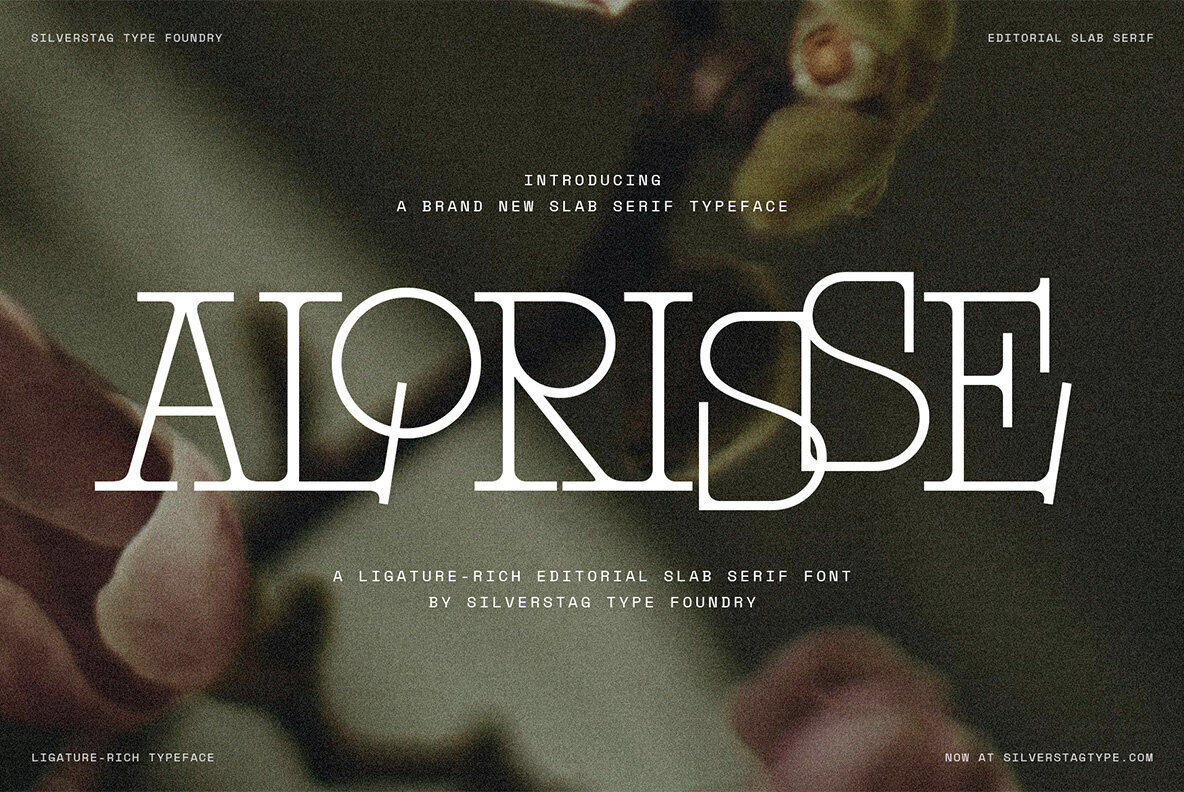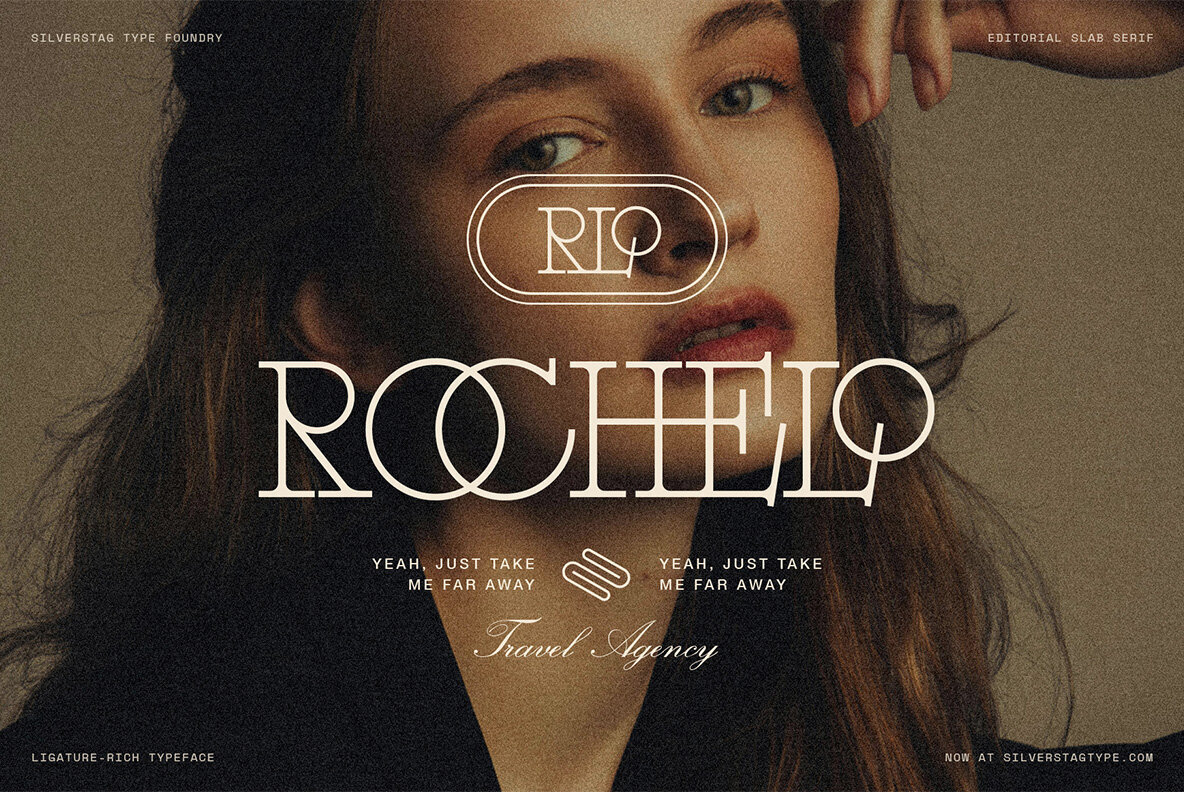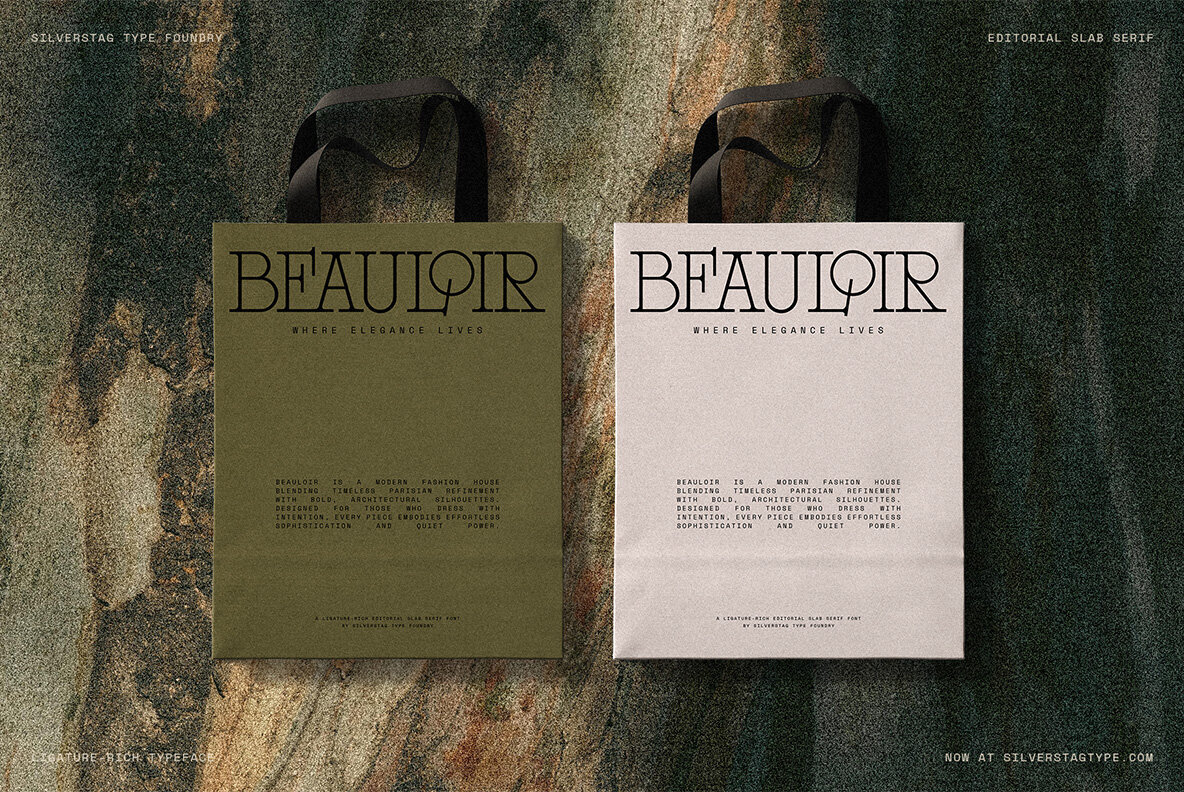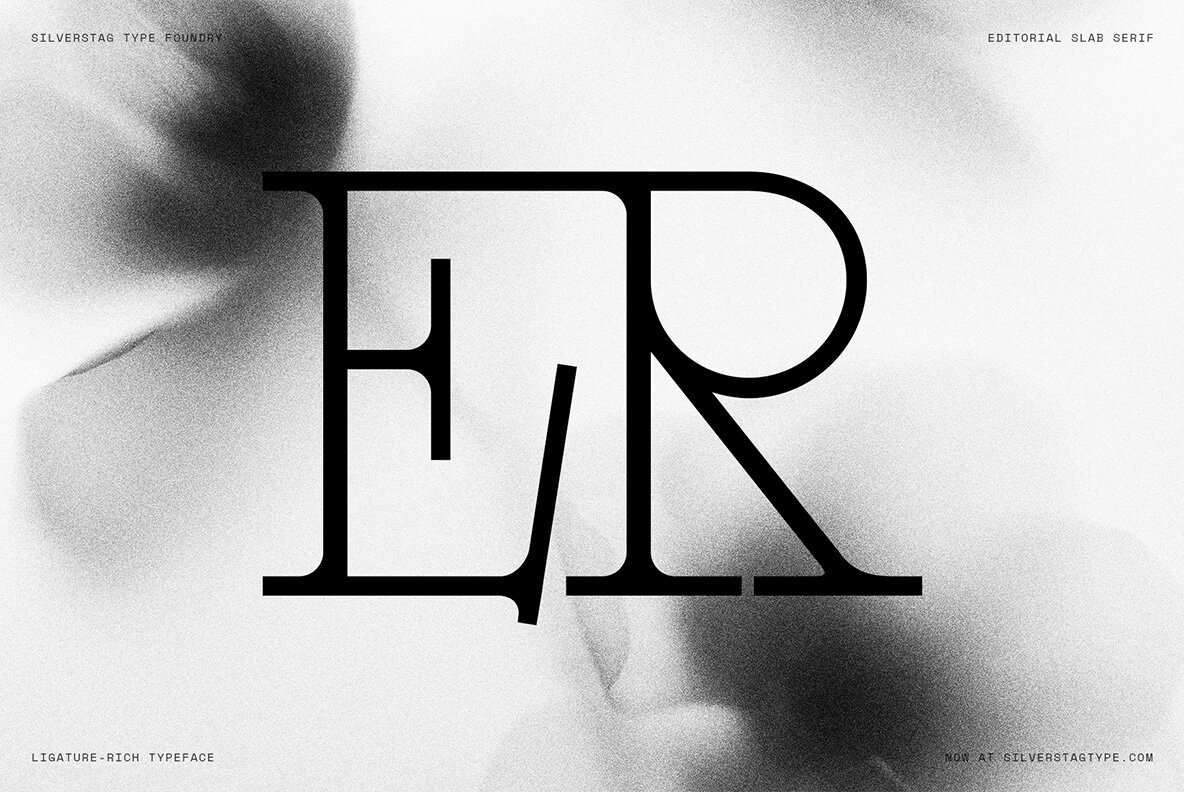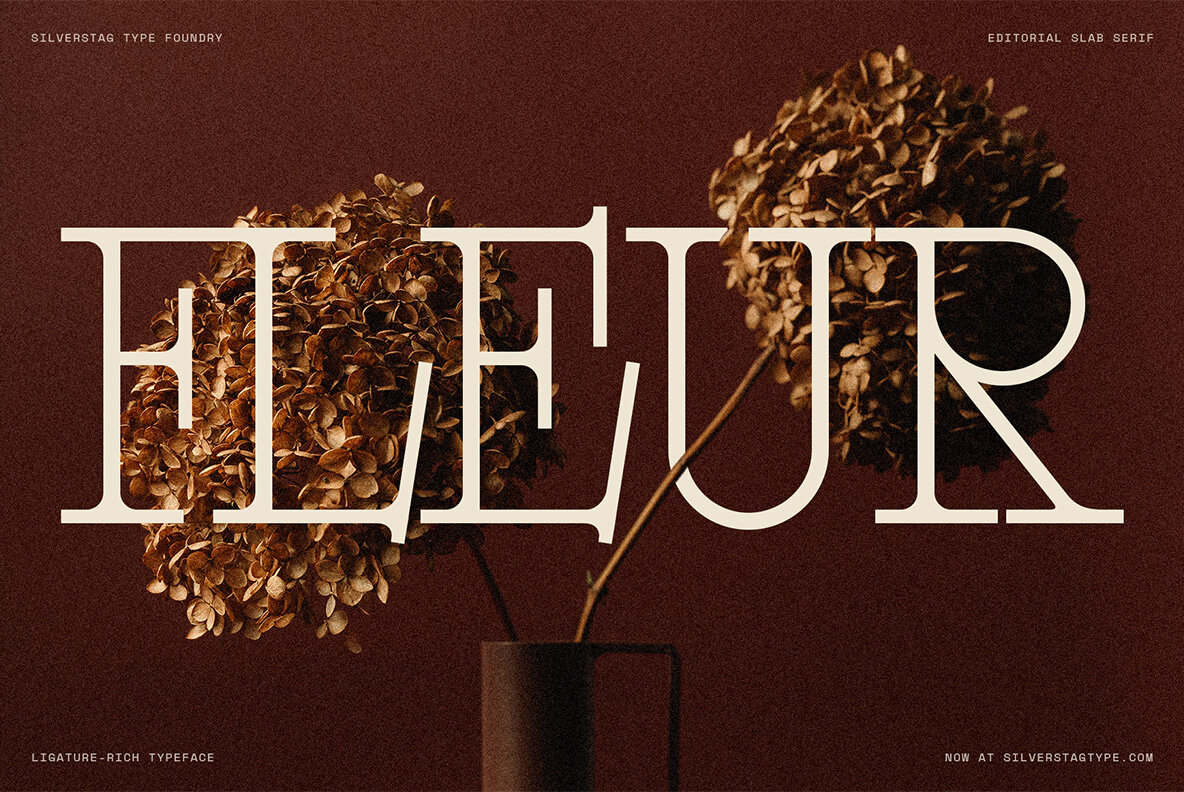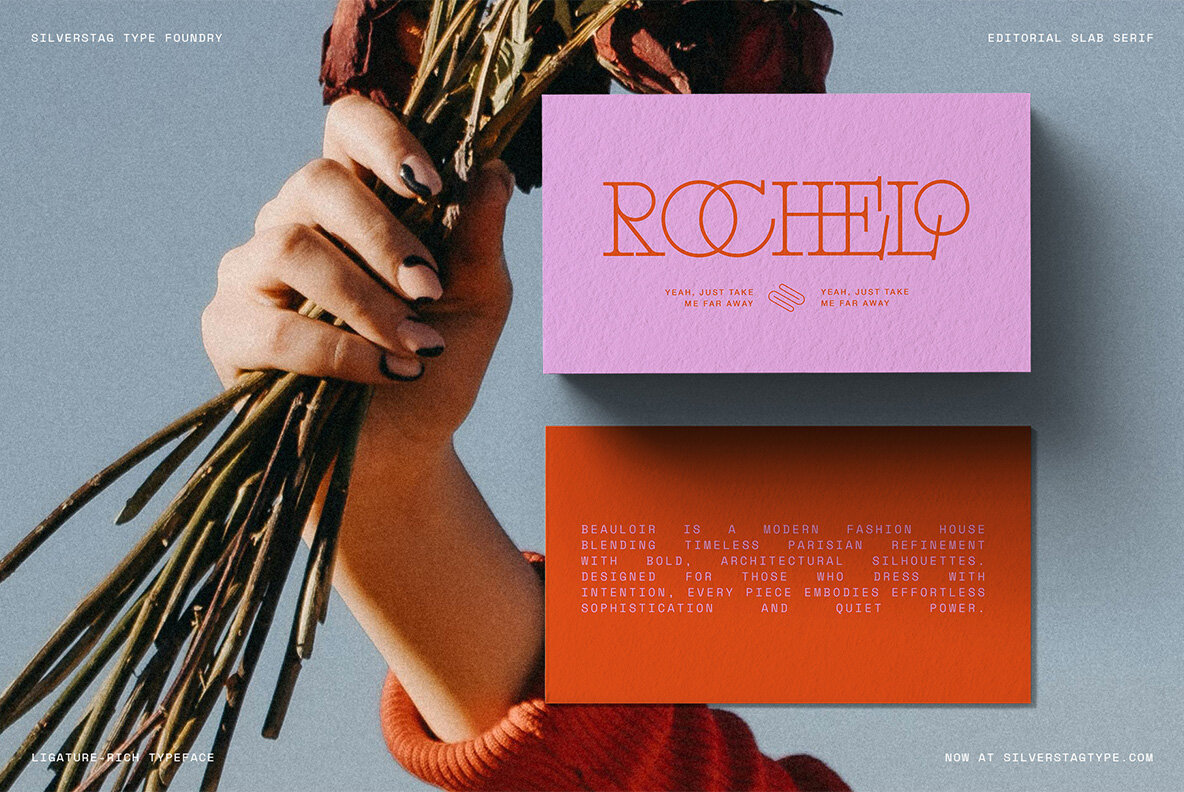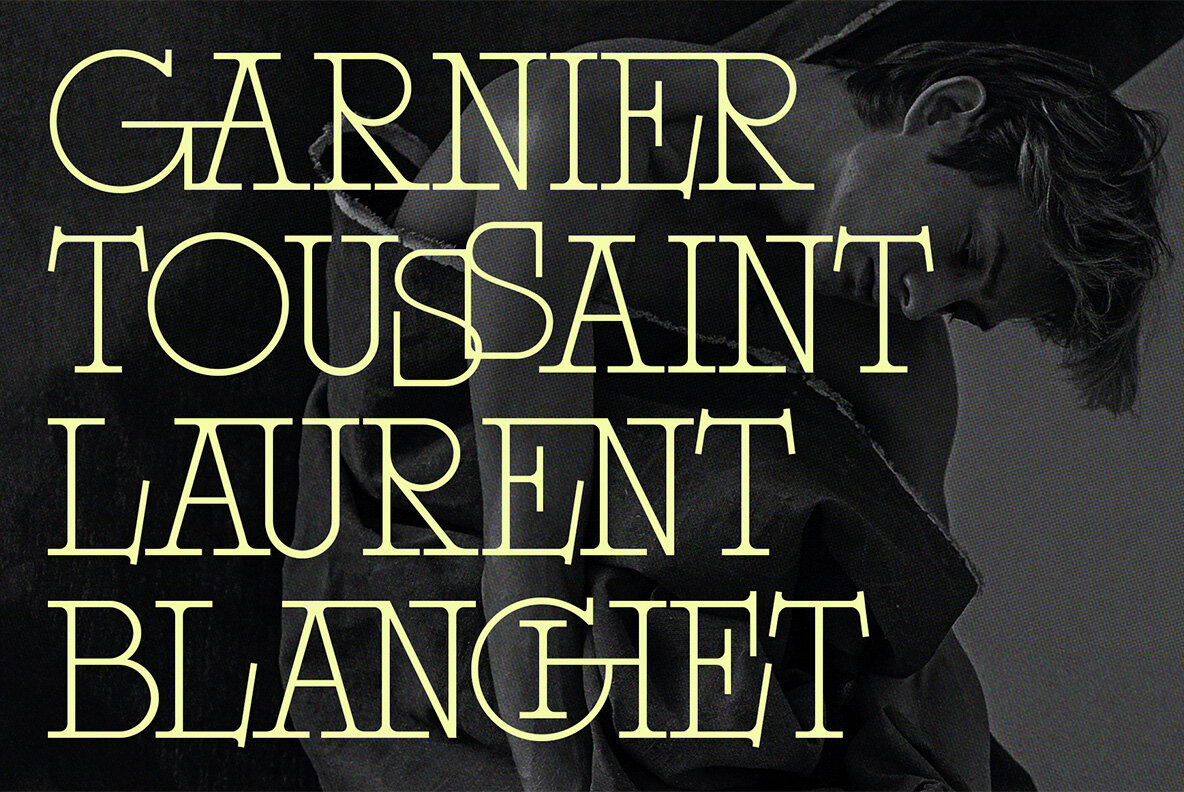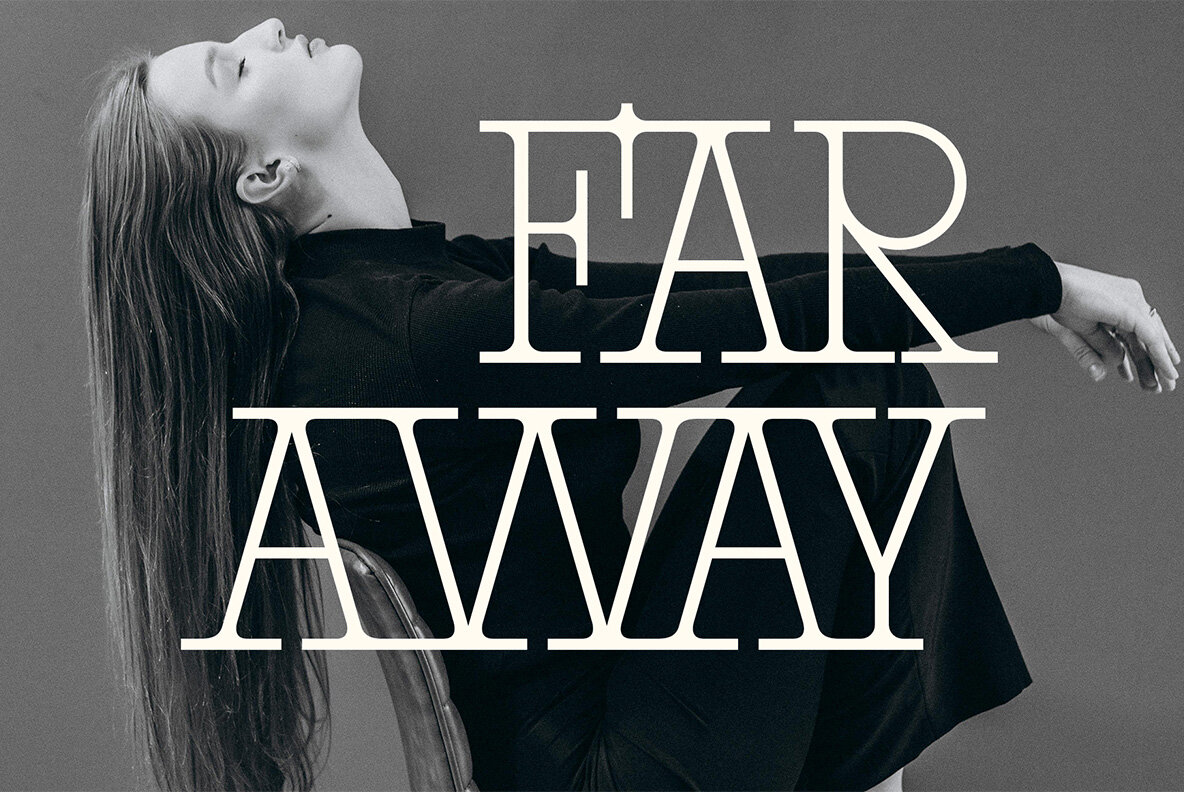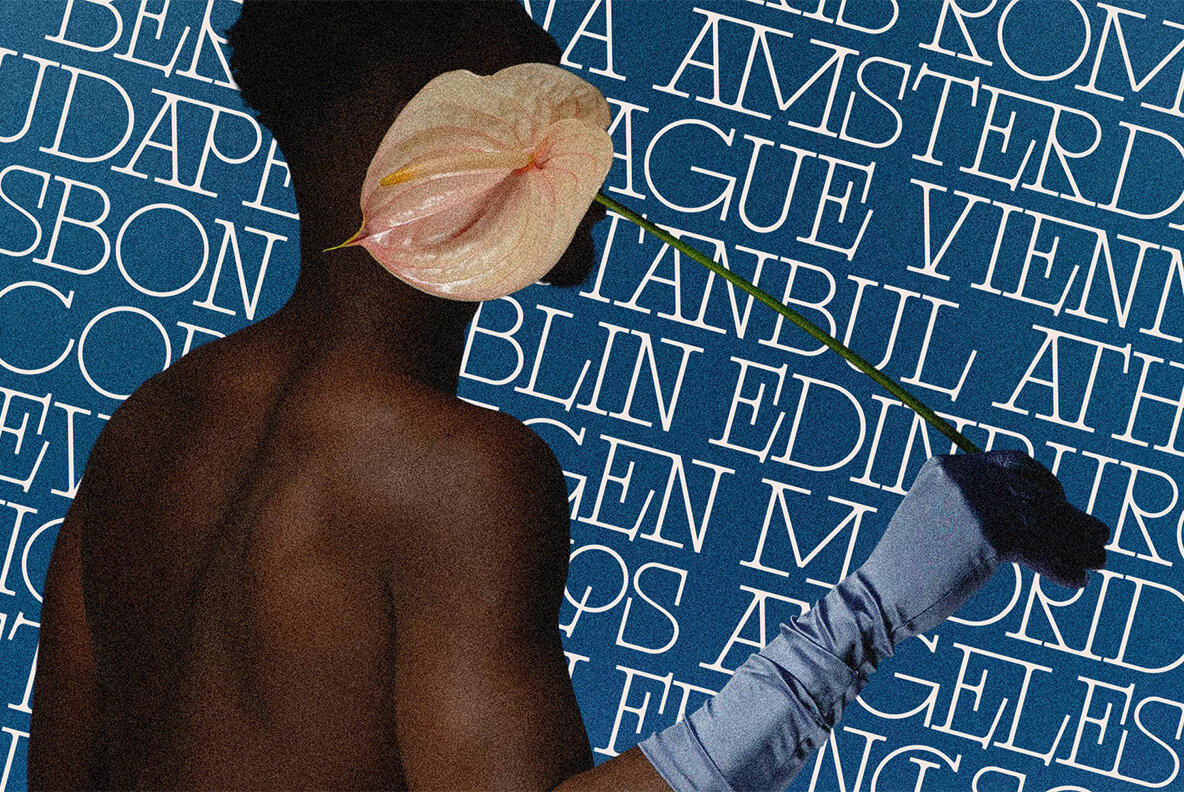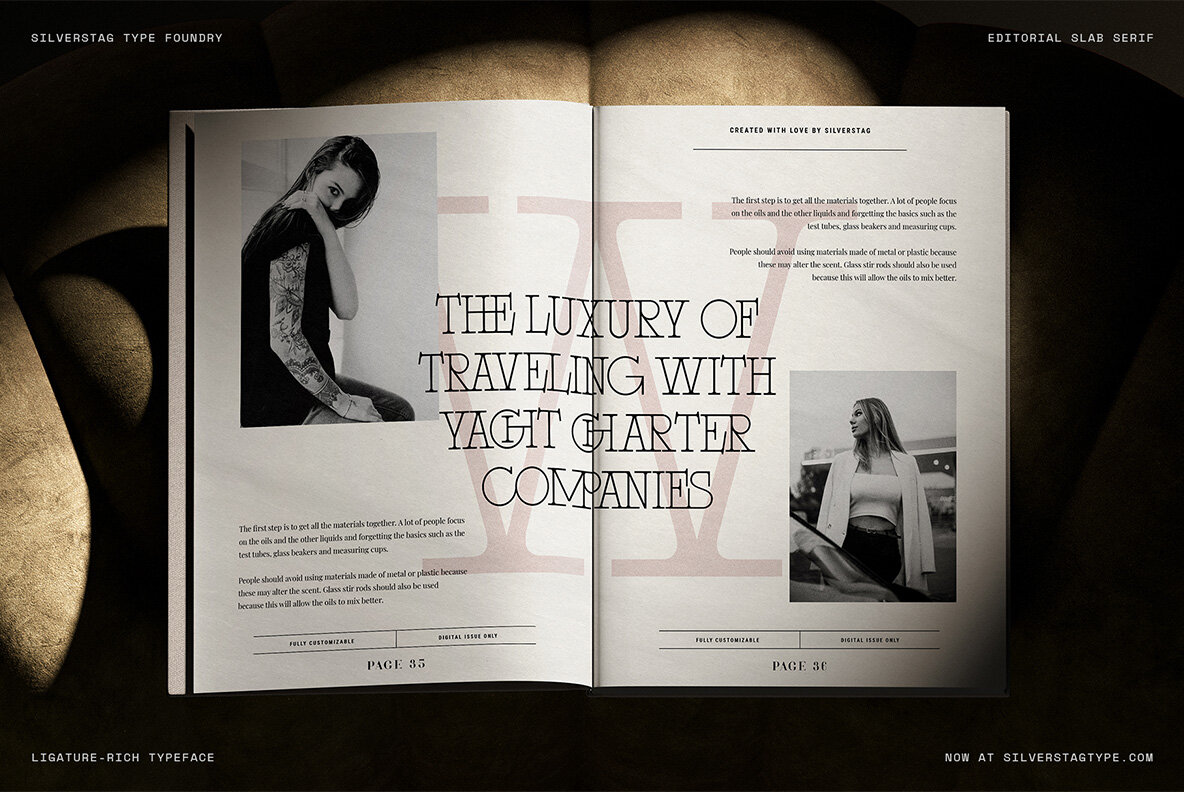
SLTF Alorisse Font
SLTF Alorisse Regular
SLTF Alorisse is an editorial slab serif that exudes expressive elegance in modern design landscapes. With high contrast and a wealth of over 150 ligatures and alternates, it is tailored for designers who appreciate the art of visual storytelling. This font's robust structure, infused with contemporary flair, makes it ideal for a range of applications such as branding, fashion editorials, packaging, and high-end visual projects. Alorisse's meticulous design is evident in every character—from its sharp serifs and dramatic forms to the flowing ligatures that craft a unique rhythm across your layout.SLTF Alorisse: Expressive Slab Serif for Editorial Design